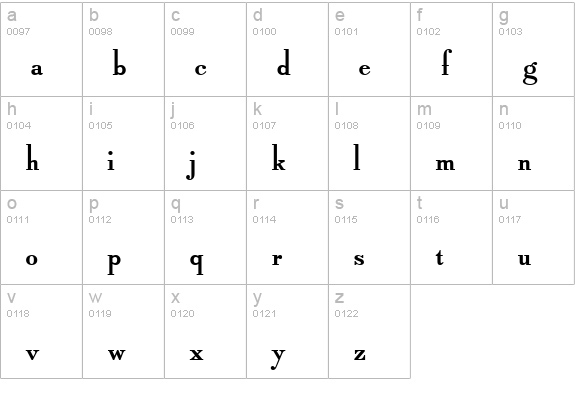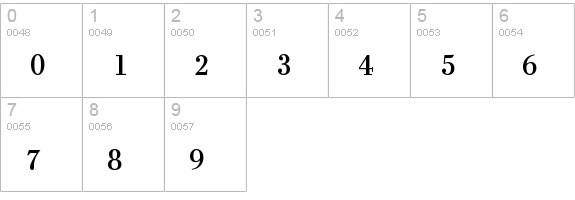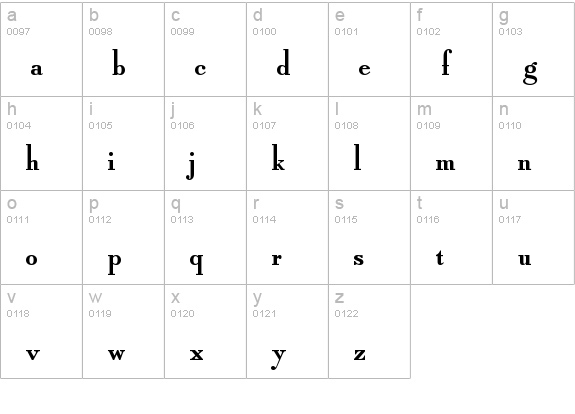
Typo Roman ATT Font Details
Introducing Typo Roman ATT, a stunning and versatile font that effortlessly combines elegance with modernity. This timeless typeface is perfect for those who seek a touch of sophistication in their design projects. With its clean lines and carefully crafted letterforms, Typo Roman ATT exudes a sense of refined beauty. Whether used for headlines, body text, or even logos, this font captivates with its subtle curves and balanced proportions. What sets Typo Roman ATT apart is not only its impeccable design, but also its accessibility. It is available for free download exclusively at FontsMarket.com, making it an excellent choice for designers, students, and creatives on a budget. The creators of Typo Roman ATT understand the importance of making high-quality resources accessible to all, and this font is a testament to their commitment. By offering it freely, they empower designers to bring their visions to life without compromising on style or quality. Whether you're designing a website, crafting a magazine layout, or creating eye-catching social media graphics, Typo Roman ATT will effortlessly elevate your work to new heights. Its versatility and timeless appeal make it a must-have font in any designer's toolkit. So why wait? Experience the beauty and elegance of Typo Roman ATT today. Visit FontsMarket.com to download it for free and unlock a world of possibilities for your design projects.